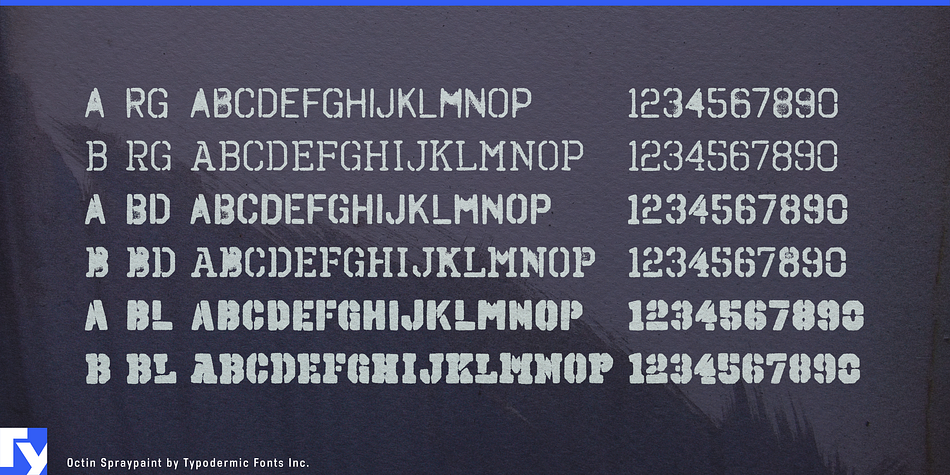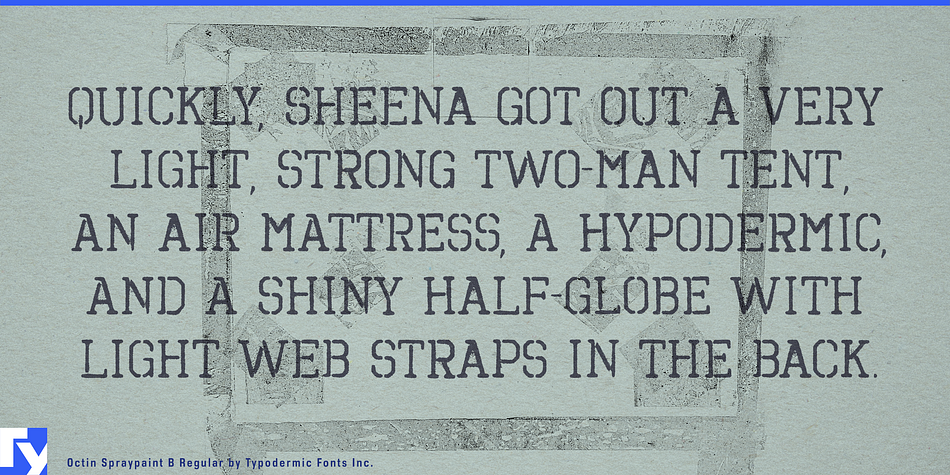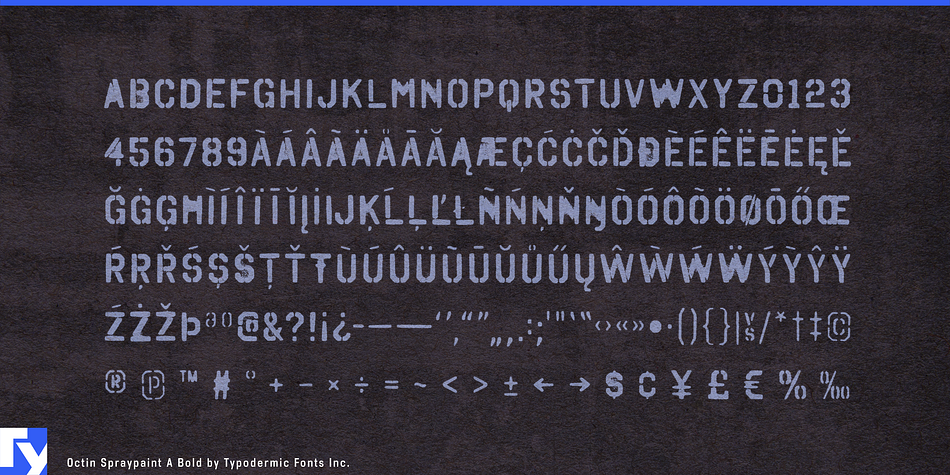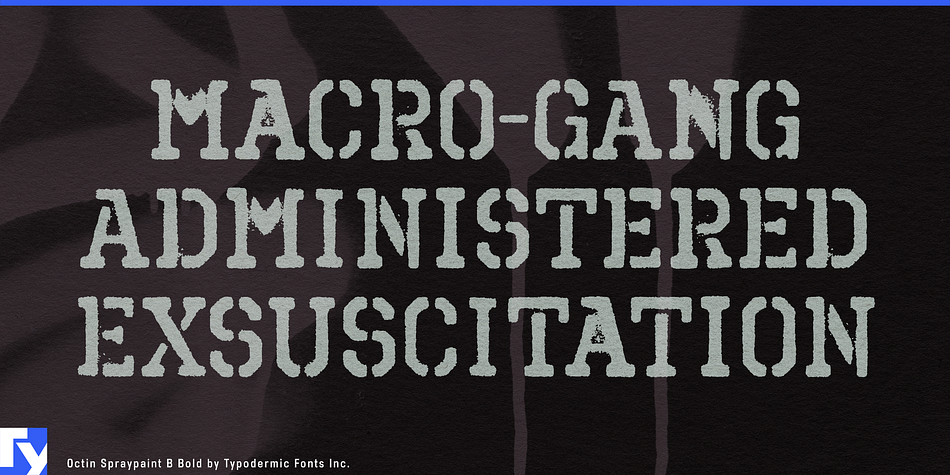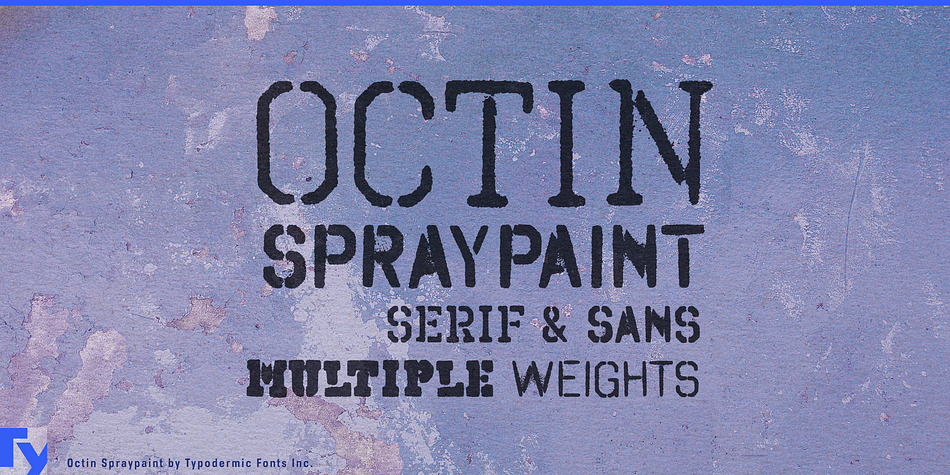
Octin Spraypaint is a grunge and stencil font family. This typeface has six styles and was published by Typodermic Fonts Inc.
Octin Spraypaint is a tough headliner in 2 styles (sans & serif) & 3 weights: regular, bold & black. Octin Spraypaint is perfect for police, sports, prison, construction, school or military themes. Check out the rest of the Octin families: Octin Sports, Octin College, Octin Prison, Octin Stencil & Octin Vintage.